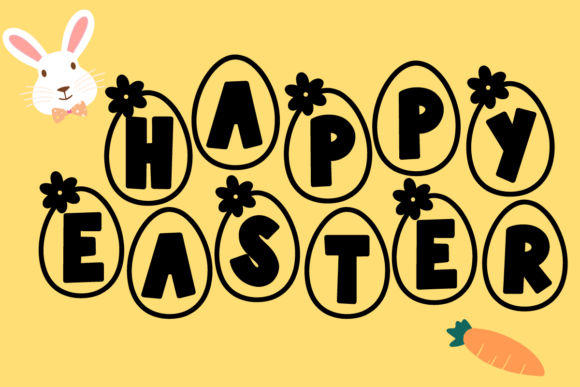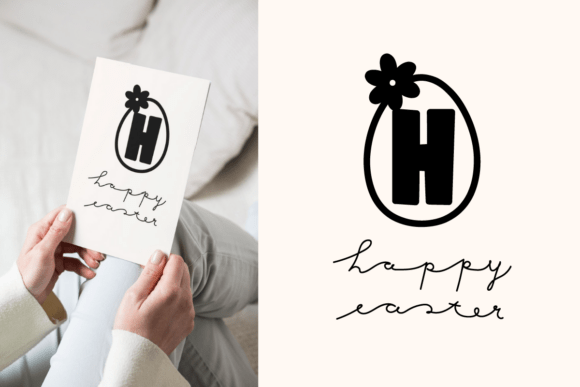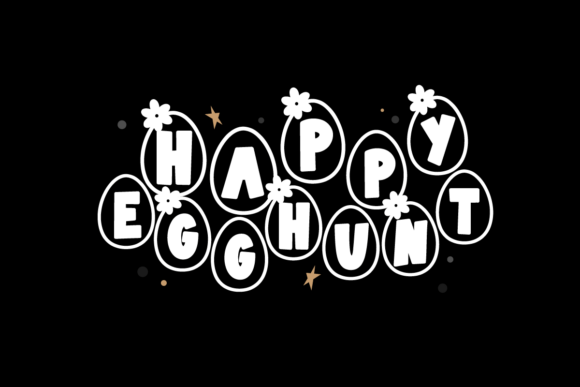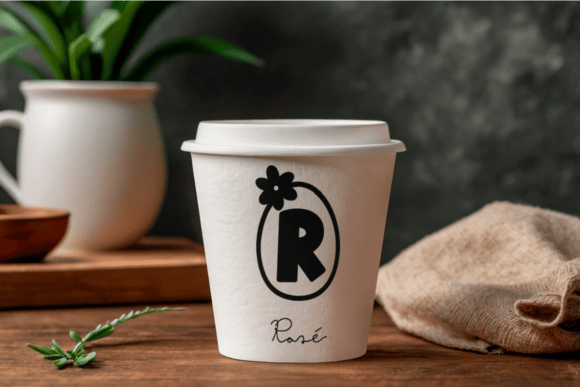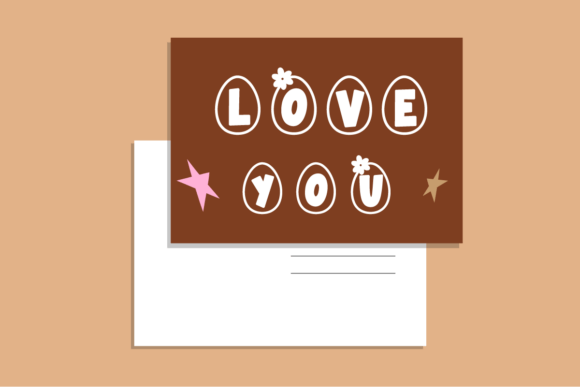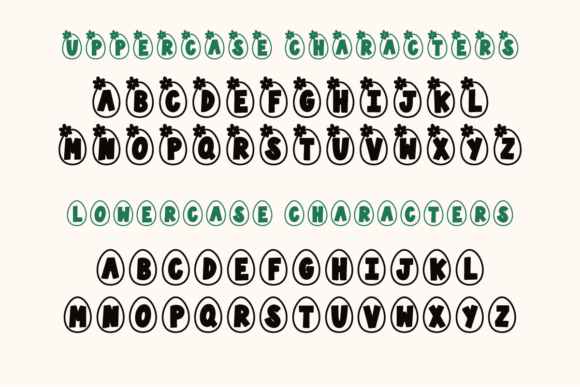
The Easter Font: A Delightful and Thematic Decorative Typeface
As a designer, I’ve had my fair share of struggles when working on seasonal projects. I recall one particularly frustrating experience while designing a festive Easter-themed flyer for a client’s spring sale. I was on a tight deadline, and my usual go-to fonts just weren’t cutting it. That’s when I stumbled upon the Easter font, a delightful and thematic decorative typeface that captured the renewal and joy of the spring season. In this article, I’ll share my experience with the Easter font, its features, and how to make the most of it in your designs.
A Personal Design Moment: Finding the Perfect Font
I was working on a project for a client who wanted a festive Easter-themed flyer to promote their spring sale. I had a clear vision of what I wanted to create, but I was struggling to find the perfect font. I spent hours browsing through font libraries, but nothing seemed quite right. That’s when I discovered the Easter font, and it was love at first sight! The Easter font is a charming and thematic display font that features uniquely framed characters within a charming egg-shaped outline, topped with a delicate floral blossom. It was exactly what I needed to bring my design to life.
An Honest Review: The Good and the Quirks
- ✨ Unique and thematic design that’s perfect for Easter and spring-themed projects
- 🎉 Delightful and playful vibe that’s sure to bring a smile to your audience’s faces
- 🌸 Customizable with OpenType features, glyphs, and stylistic alternates
- 🤔 Limited use outside of Easter and spring-themed projects (but that’s not necessarily a bad thing!)
- ⚠️ May not work well with body text or long paragraphs (it’s best used as a display font)
The Designer Inspiration Behind the Easter Font
The Easter font was designed with the intention of capturing the renewal and joy of the spring season. The designer wanted to create a font that would bring a smile to people’s faces and evoke the feeling of Easter and springtime. The result is a delightful and thematic decorative typeface that’s perfect for Easter and spring-themed projects.
| Font Name | Easter Font |
| What is the Easter font? | The Easter font is a delightful and thematic decorative typeface that captures the renewal and joy of the spring season. |
| Can I customize the Easter font? | Yes, the Easter font can be customized using OpenType features, glyphs, and stylistic alternates. |